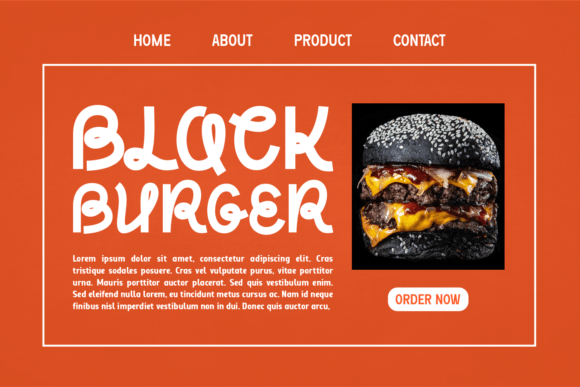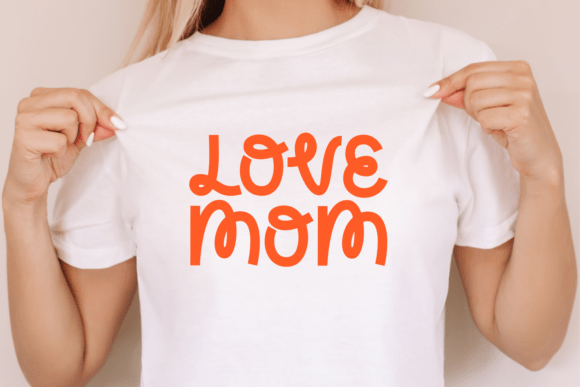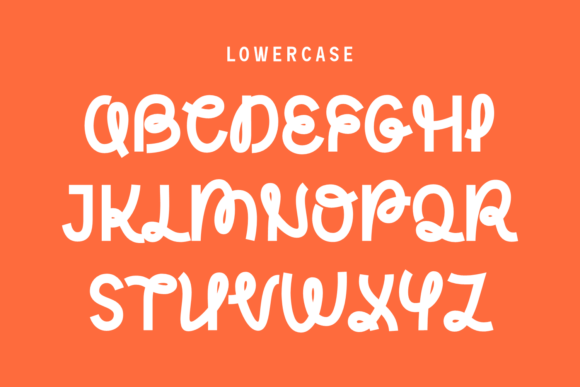
Introduction to Light Heaven Font
Have you ever stared at a blank canvas, eager to bring your creative vision to life, only to be met with a dull and uninspiring font that fails to capture the essence of your idea? This is where the magic of the Light Heaven Font comes in – a game-changing display font that breathes new life into contemporary branding and artfully merges playful athleticism with the trendiest of personas.
Whether you’re a seasoned designer or a social media enthusiast, the Light Heaven Font is a must-have design resource that offers unparalleled versatility and high-quality visuals. With its sophisticated loops and curls, this font radiates a magnetic hipster vibe that’s ready to level up your stylistic expression and make your creative project stand out from the crowd.
Key Features of Light Heaven Font
- High-quality, scalable design suitable for creative projects
- Translucent background for seamless integration with various designs
- Designed with a resolution of 300 DPI for crisp, high-quality rendering
- Perfect for use in a variety of creative projects, including digital art and graphics
Honest Review: Light Heaven Font
I recently came across the Light Heaven Font and I must say it’s a great addition to my design resource library. I’ve been using it for a few creative projects and I’m quite impressed with the results.
Here are some things that work well: ✨
- High-quality design: The font is crisp and clear, making it perfect for digital designs.
- Transparent background: The ability to download a transparent background version is super convenient for designers who need to overlay text on images.
However, I do have a few concerns: ⚠️
- Limited font styles: While the font itself is beautiful, it’s a bit limited in terms of font styles and weights.
- Not ideal for print design: The font may not be the best choice for print designs due to its digital-centric design.
Overall, I’m quite pleased with the Light Heaven Font and would recommend it to designers looking for a high-quality, free design resource for their creative projects.
How to Use Light Heaven Font
For the best results, use the Light Heaven Font in conjunction with a high-quality image or background. This font is particularly suitable for creative projects that require a light, airy feel. Common use cases include wedding invitations, baby shower decorations, and minimalist branding.